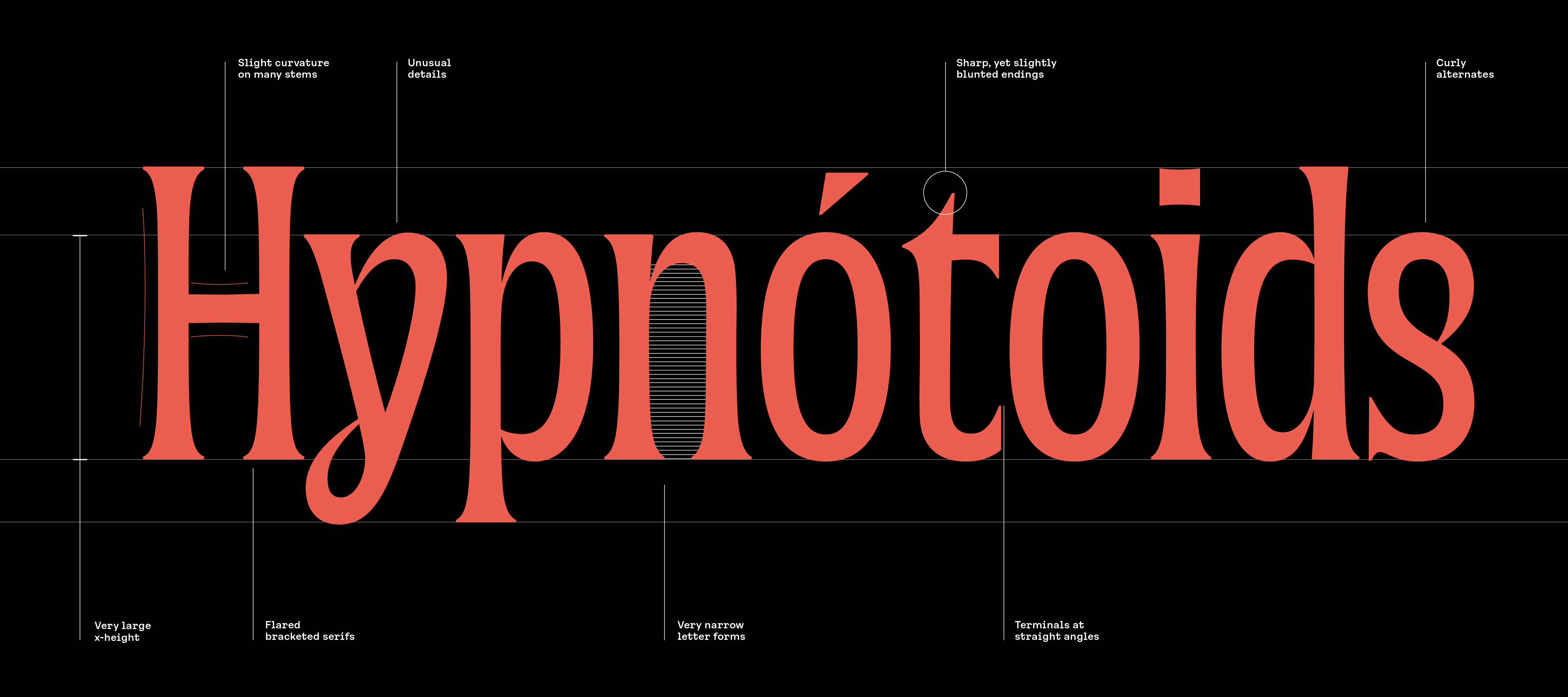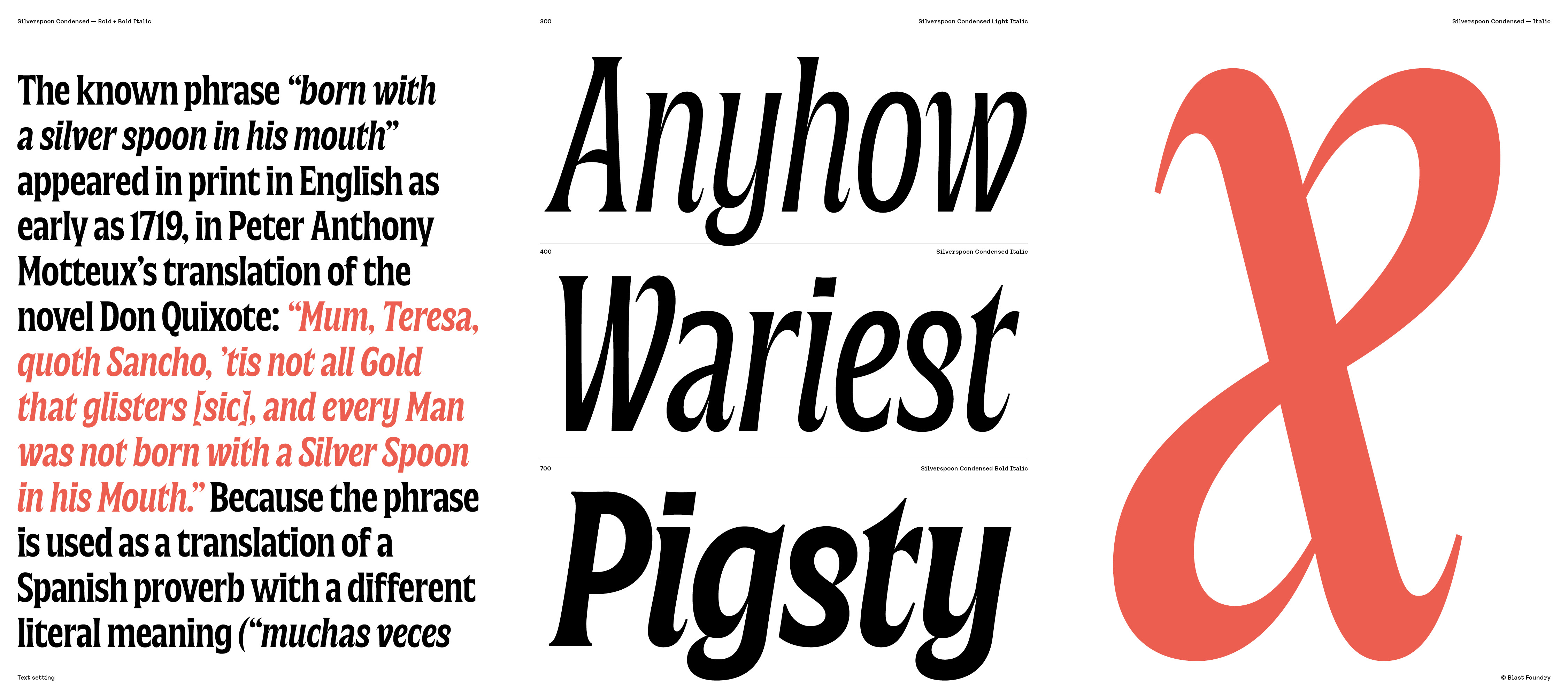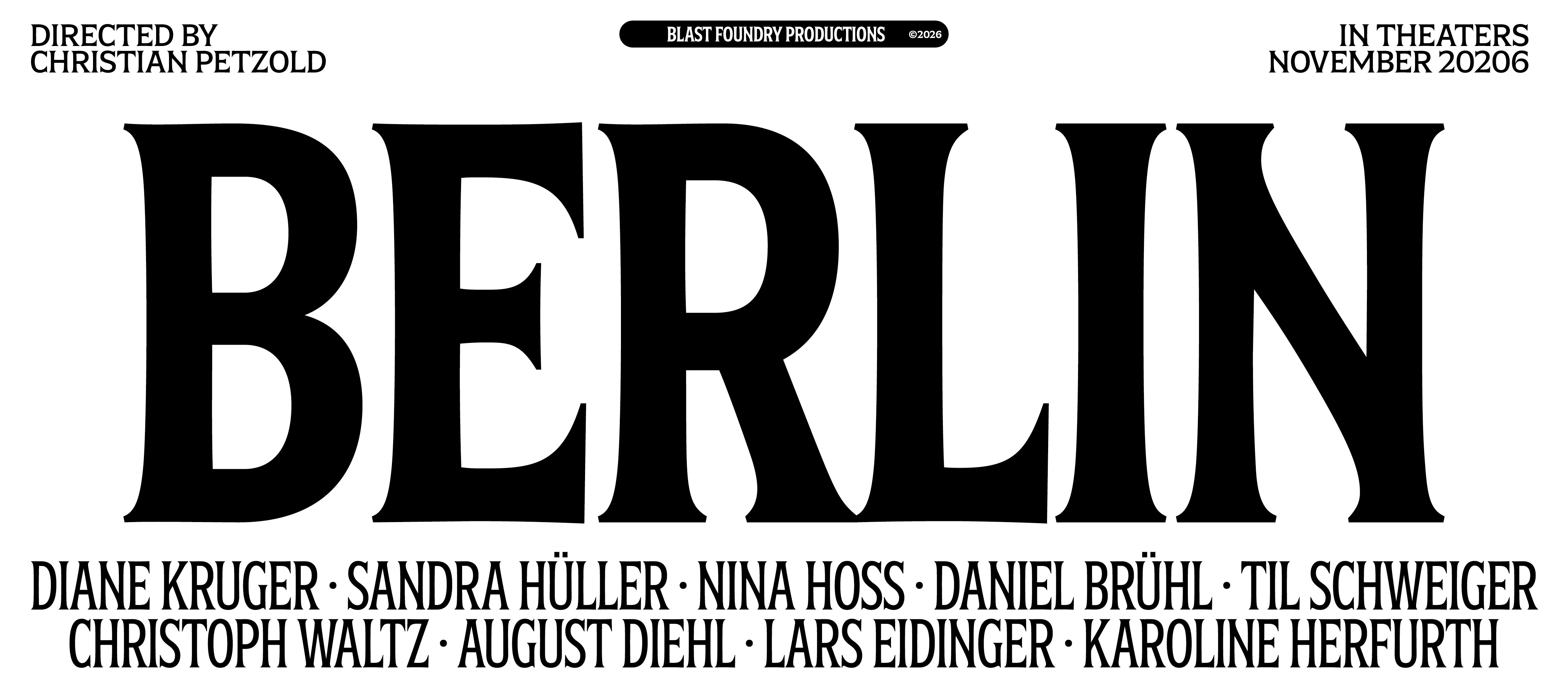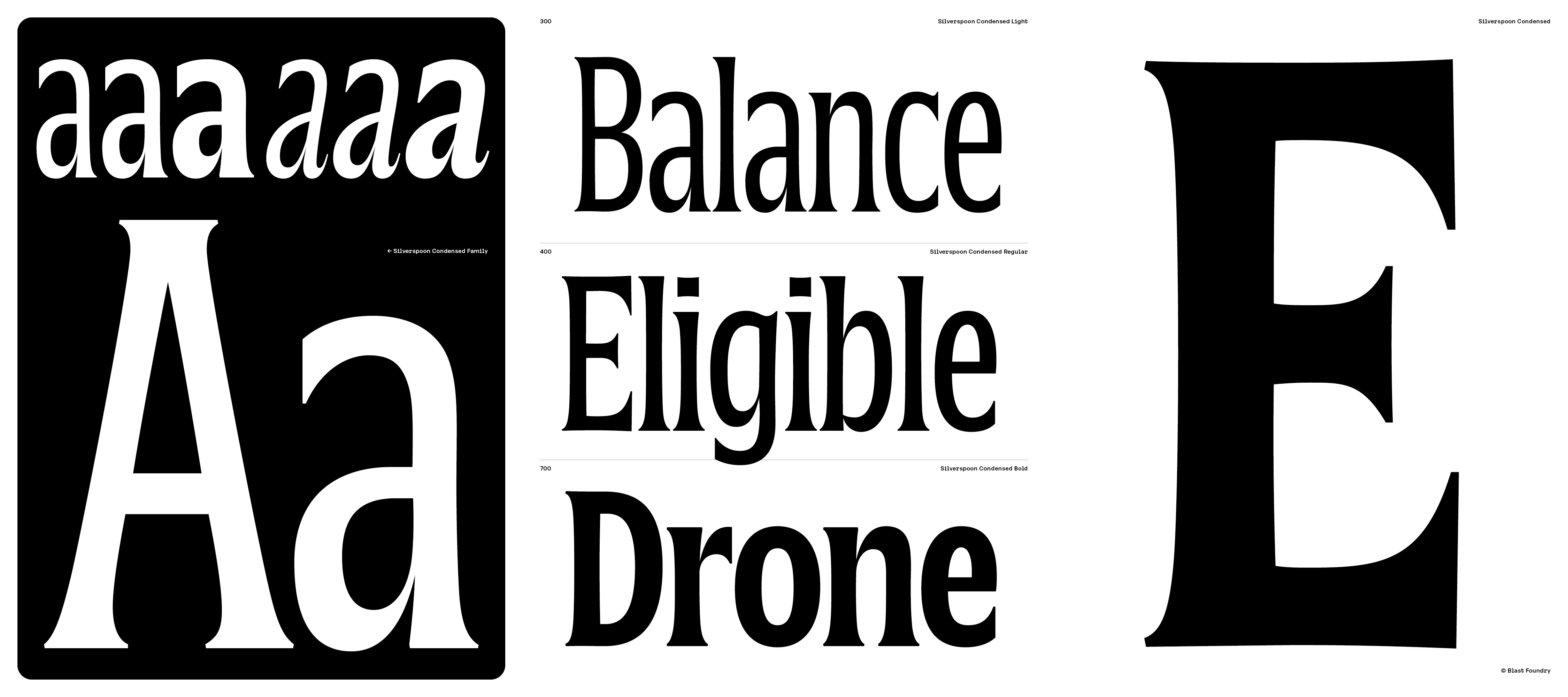
Foundry:
Blast Foundry
Released:
February 18, 2026
Styles:
14
Category:
serif
Tone:
casual
Use size:
large, medium, small
Width:
narrow, normal
Weight:
regular, bold
Contrast:
medium
Other:
variable, italic
About the typeface
The original inspiration comes from the letters found on the Albert S. Samuels Clock on 856 Market Street in San Francisco, which Diana digitized in a speed-design session while visiting the Bay Area in 2017. Since then, the design has grown and seem multiple updates via Future Fonts. In 2022 it was completed as multi-width family with an extended character set.
Silverspoon is a typeface that performs well at medium sizes. Its flared serifs, tight spacing, and compact vertical proportions make it look very stable. The user has the option to turn on slightly more curly alternates, which break the blockiness of the text setting, adding a touch of panache for those who need it. The italics are more curly, and flamboyant by desigd, performing well to add a touch of sparkle to any design.
Silverspoon Condensed is a space-saving version its older cousin, which can be used for headlines and is expecially attractive for setting large quotes and logos on packages.